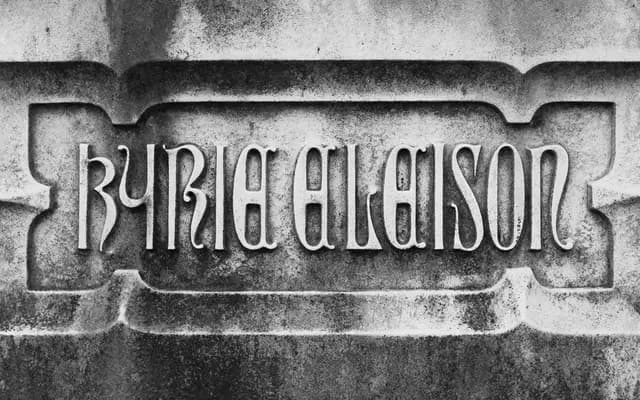
A variable blackletter family derived from a late-19th-century grave monument in Brooklyn's Green-Wood Cemetery, spanning optical sizes from a narrow Display to a surprisingly readable Text cut.
Kyrios pairs a blackletter lowercase with a Lombardic uppercase, with geometric interiors, soft corners and Art Nouveau curves all drawn from carved lettering on a Victorian-era tombstone. The family runs from weight 400 to 1000 across a variable axis and ships in 15 static styles organised into Display, Standard and Text optical sizes, each adjusting proportions and letterform detail for its intended size. Alternate cap sets — including a blackletter uppercase and a simplified Roman — along with extensive OpenType features give it considerably more range than typical display blackletters, with extended Latin support covering 265-plus languages.
Kyrios is explicitly a blackletter family, combining a blackletter lowercase with a Lombardic uppercase and Art Nouveau curves, making it a hybrid within the blackletter tradition rather than a pure textura or fraktur.